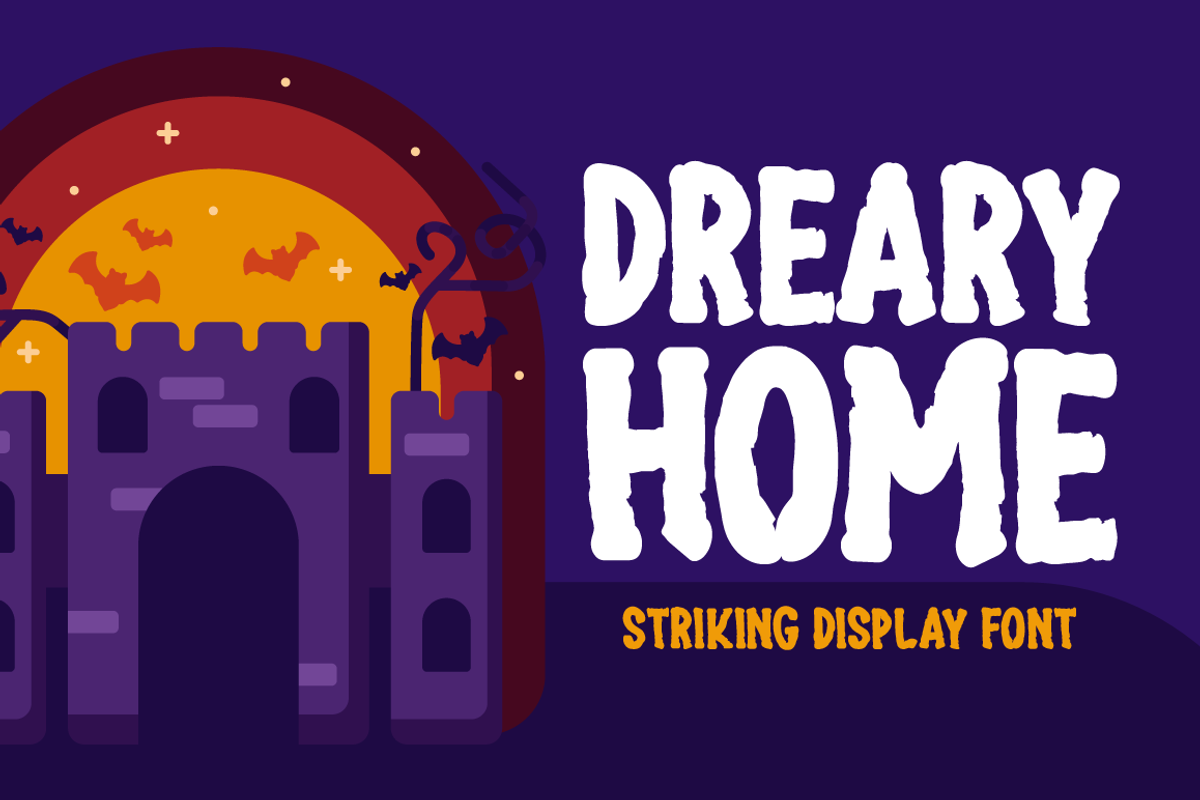
Dreary Home Typeface Font Free Download is a moody and atmospheric font that brings a touch of vintage mystery to your creative projects. Please note, you are required to purchase this font for commercial use. It is available for free download for testing and personal projects only.
With its gothic-inspired letterforms and rustic charm, Dreary Home is perfect for book covers, posters, dark branding, album art, and themed designs that need a dramatic, emotional edge. The font's textured appearance and haunting vibe help convey stories filled with depth and intrigue.